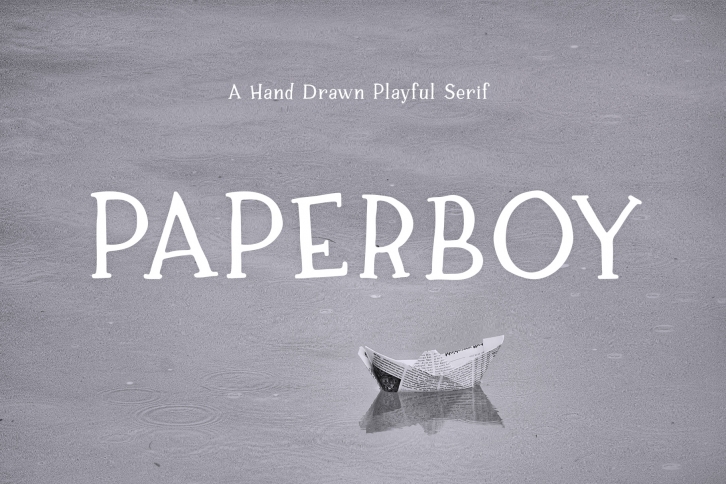
Paperboy is a trendy and unique font with an authentic style. It was designed by Ayca Atalay and it's a great choice for creative people who need such a font. It was released on April 17, 2018 and the file size is 14.40 MB. Paperboy will add an organic vibe to any design idea!